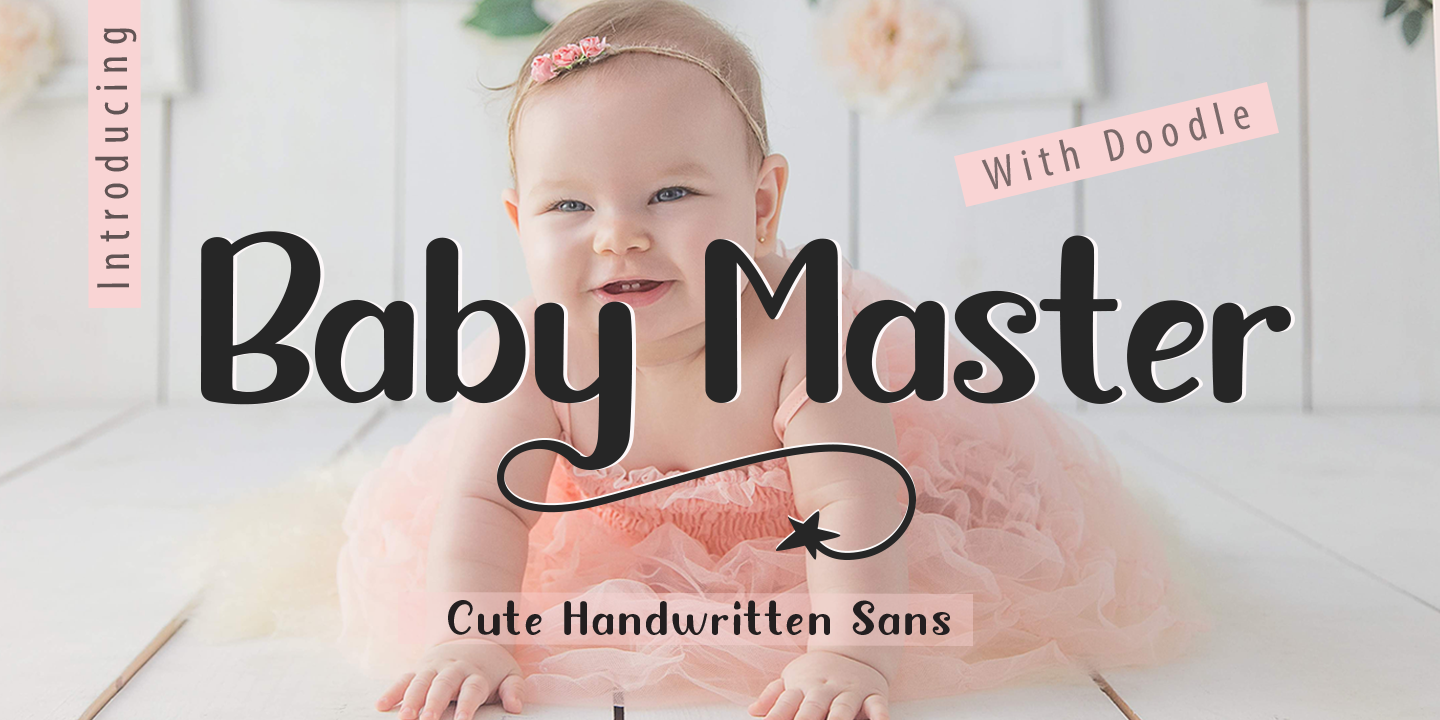
Baby Master Font is perfect for child-friendly design applications including baby product branding, children's book illustrations, nursery decor, toy packaging, daycare center signage, kids' clothing labels, baby shower invitations, and pediatric healthcare materials. This adorable typeface brings playful charm and nurturing warmth to projects that celebrate childhood innocence and parental love.
What makes Baby Master Font exciting is its delightful ability to capture the joy and wonder of early childhood through soft, rounded letterforms that embody safety, comfort, and playful learning. The font features gentle curves and friendly characteristics that instantly communicate warmth and care. Its child-friendly character appeals to parents and caregivers who prioritize safety, comfort, and developmental appropriateness for young children.
The Baby Master Font family includes various child-inspired styles such as Regular, Bold, Light, and playful alternates that enhance the nurturing aesthetic. These gentle options provide comprehensive design solutions for creating authentic child-focused brand identities that celebrate early childhood development and family bonds.
This specialized child-friendly typeface brings genuine nurturing authenticity to contemporary design projects. Baby product companies and childcare providers choose Baby Master Font Free Download for its exceptional ability to communicate safety and childhood joy. The font's baby-inspired design makes it perfect for infant product manufacturers, early childhood education centers, and family-focused brands that want to convey care and developmental support. Its gentle character ensures memorable brand recognition while maintaining the authentic aesthetic that defines exceptional child-centered design work.